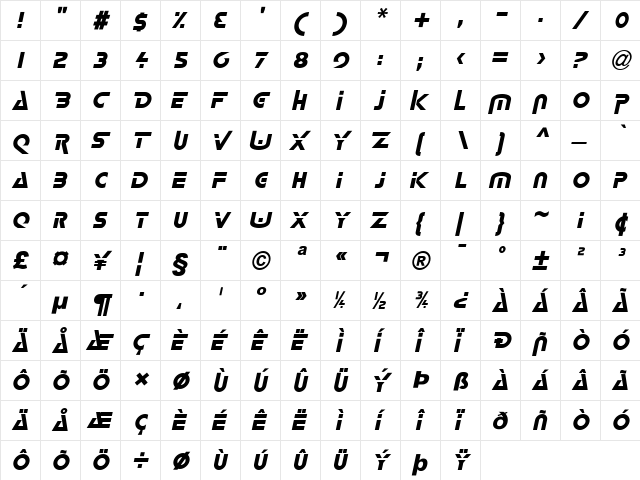
Delta Italic
Design Context for Delta Typeface
Delta offers clean, dependable letterforms without strong stylistic allegiance, making it a practical choice for designers who need flexibility. The dynamic lean of this cut emphasises speed and emphasis in any layout.
Pro Tip: Try Delta for annotation and caption copy alongside an upright companion — the contrast in angle creates a dynamic but ordered typographic system.